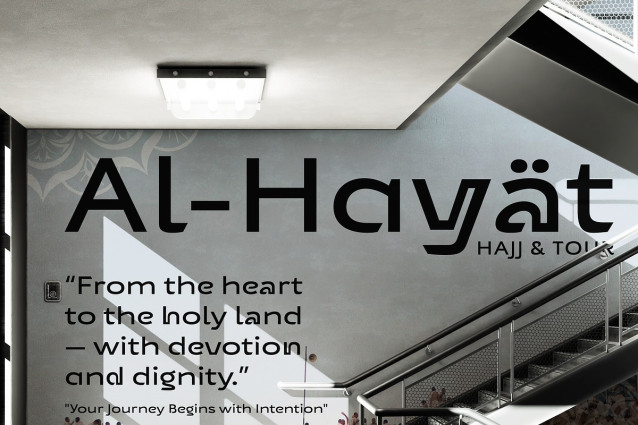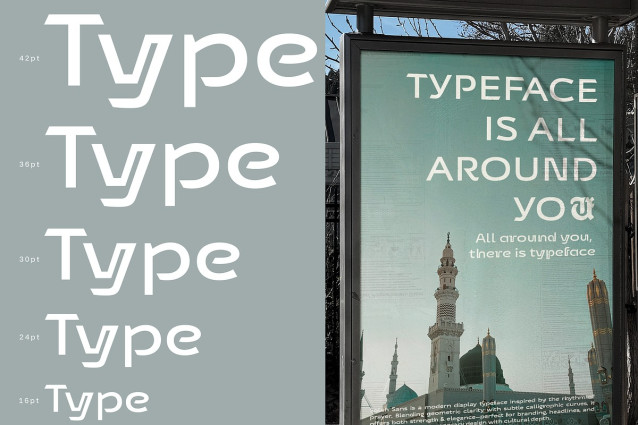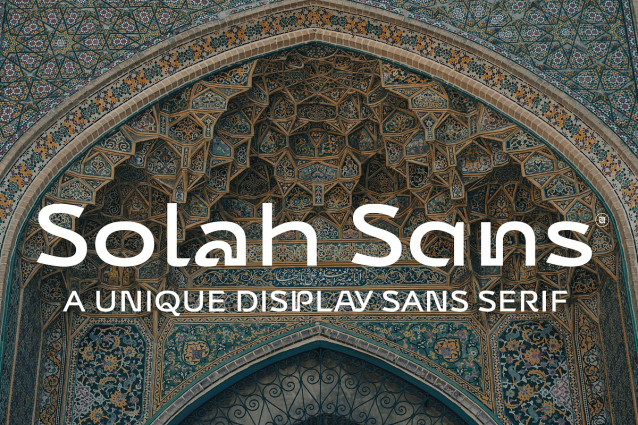
UT Solah Sans Font
UT Solah Sans Font a calm, soulful rhythm into modern typography. It carries the gentle flow of movement and devotion, shaped by subtle curves and confident geometry.
This typeface feels at home in spaces where clarity meets emotion — where faith, culture, and contemporary design shake hands. Think of it as a quiet companion that speaks with purpose: soft corners, steady posture, and a touch of sacred elegance in every stroke.
Clean enough for today’s branding needs. Distinct enough to stay in memory.
Designers, brands, and creators who appreciate modern simplicity with cultural depth — especially those who blend identity, spirituality, and contemporary aesthetics in their work.
Perfect for Muslim-focused brands, editorial designers, cultural institutions, fashion lines, and creative studios looking for a unique voice rooted in meaning.